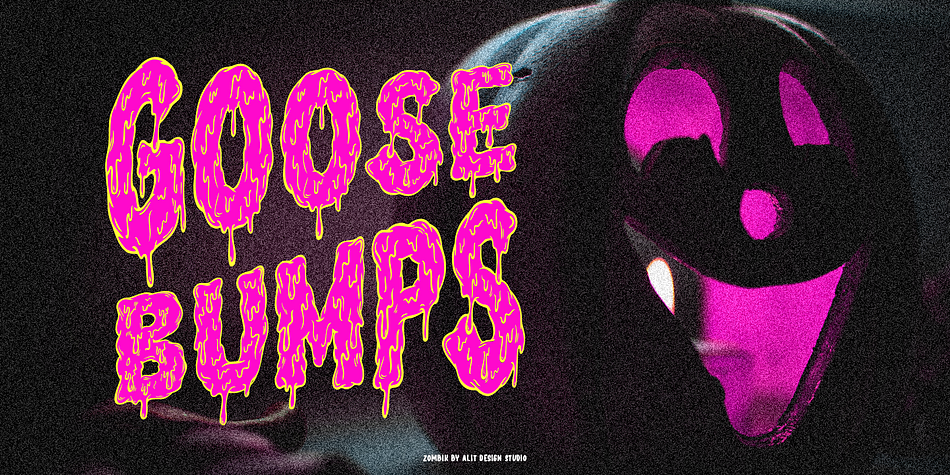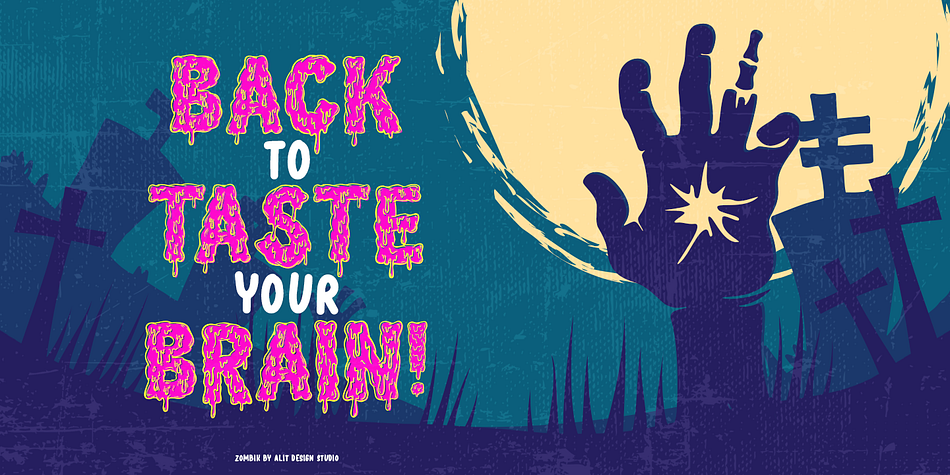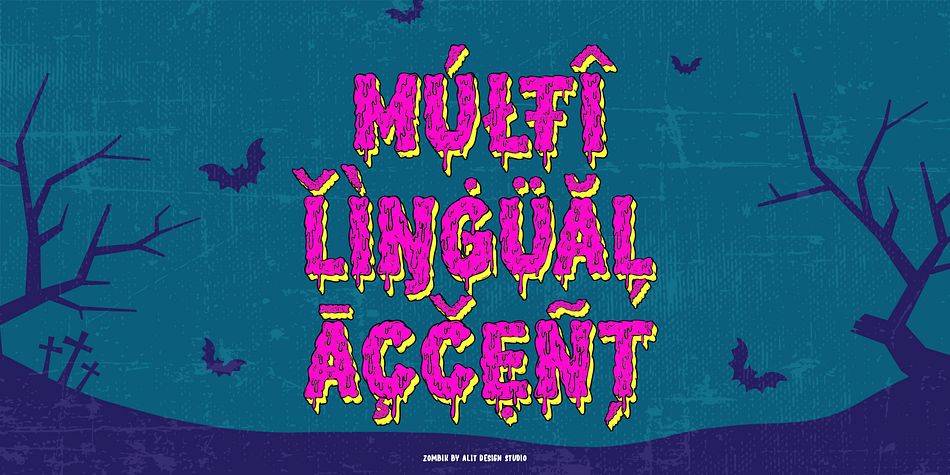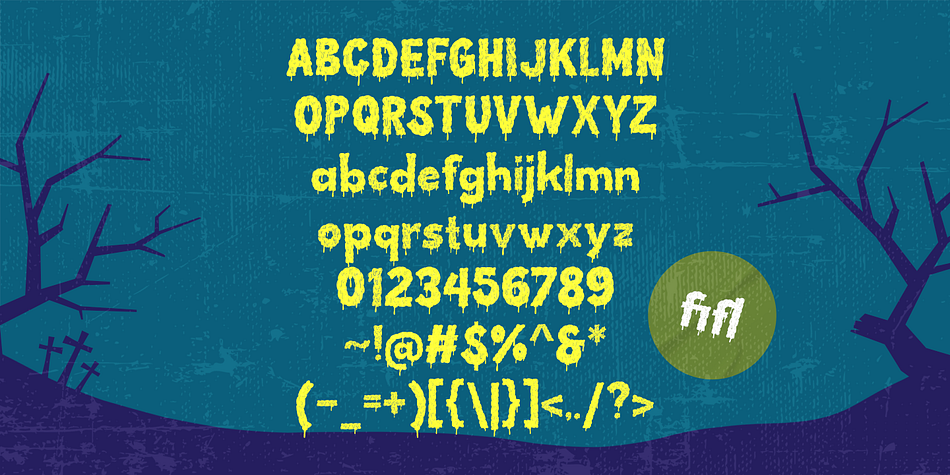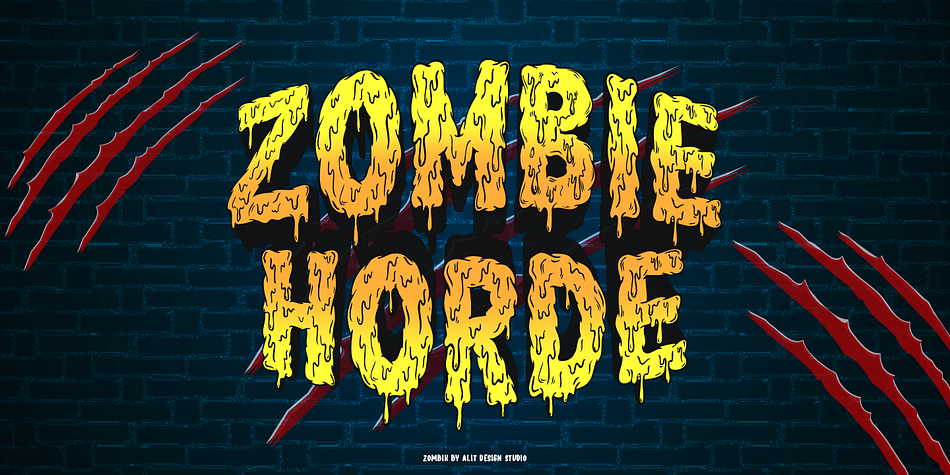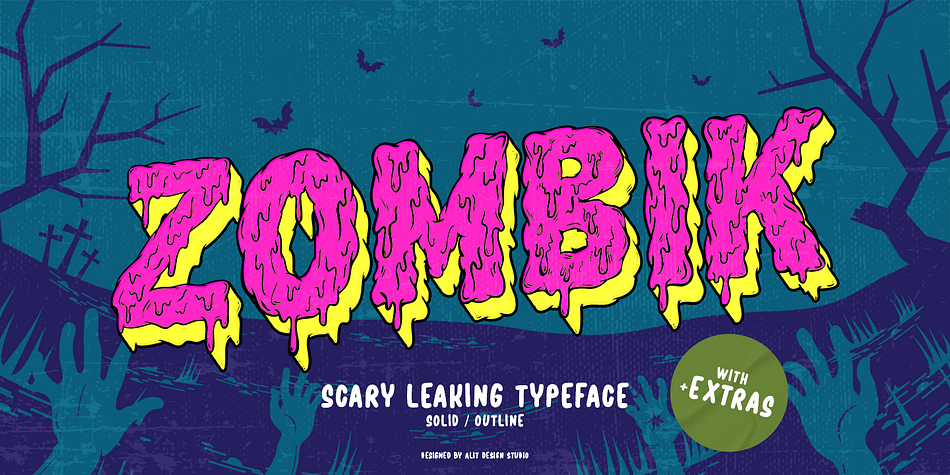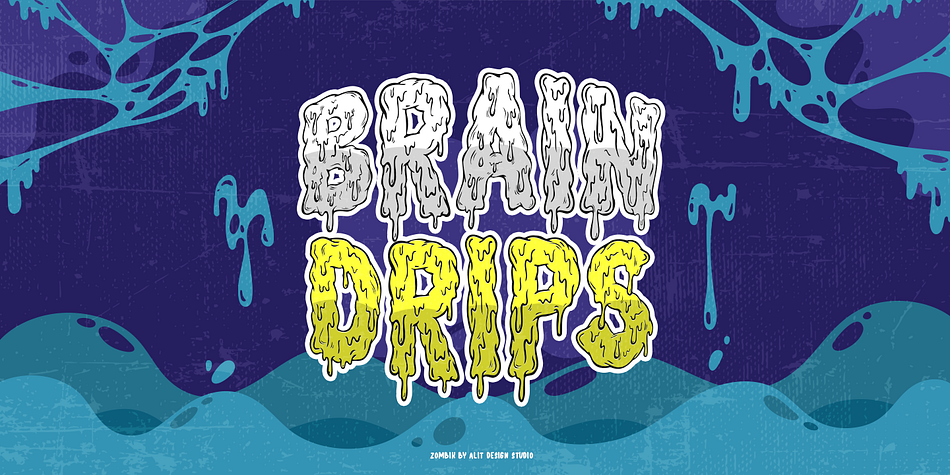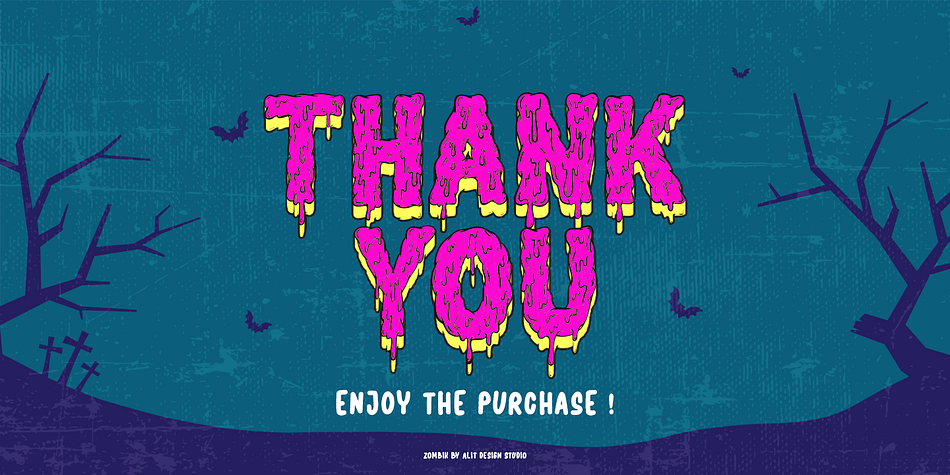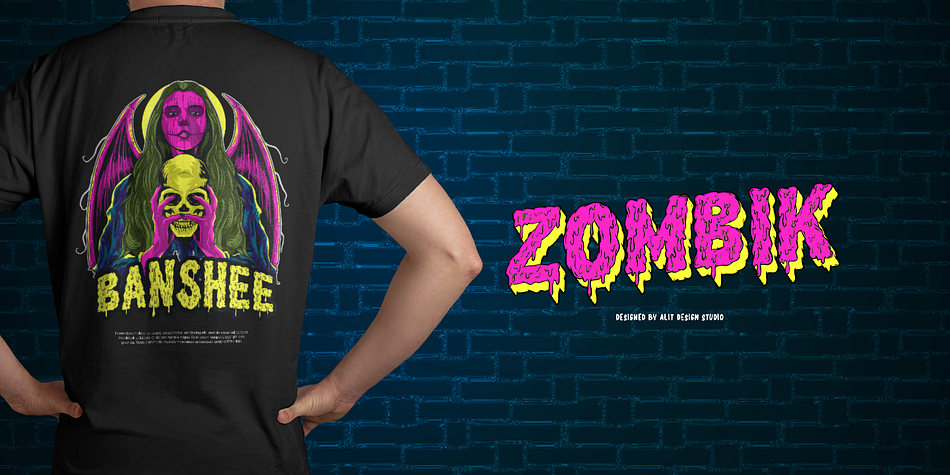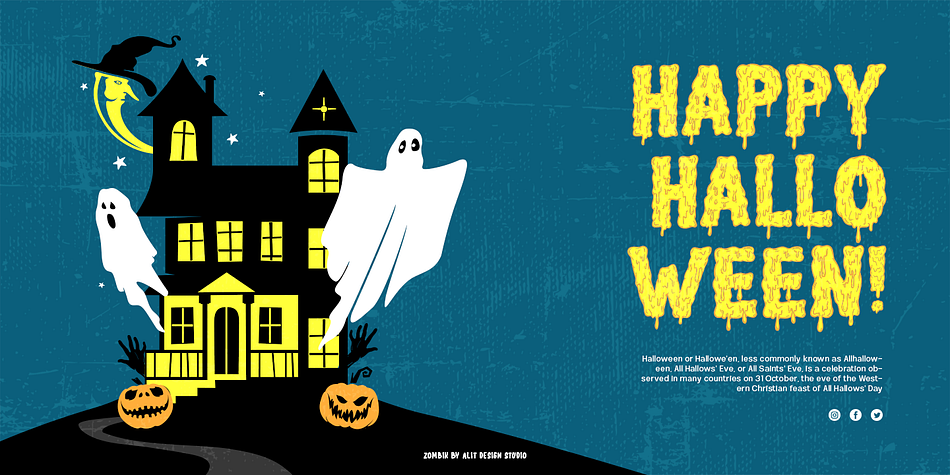
The Zombik
Designed by Alit Suarnegara, The Zombik is a display font family. This typeface has three styles and was published by Alit Design.
Presenting the ???? The Zombik Typeface ???? by alitdesign.
The Zombik typeface is designed for the needs of design concepts themed about Halloween and events in October and November. The Zombik font has a horror character with a character shaped like dripping blood, making the horo or Halloween themed design concept even better and unique.
The Zombik font also gets a bonus character of 150 Halloween-themed illustrations that make creating designs even easier. Simply by downloading The Zombik font, creating a Halloween themed design is very quick and easy.
The Zombik Typeface is perfect for magazine cover designs, brochures, flyers. Instagram ads, Canva Design and so on with halloween and dark concepts. besides that this font is very easy to use both in design and non-design programs because everything changes and glyphs are supported by Unicode (PUA).
The Zombik Typeface contains 473 + 150 bonus glyphs with many unique and interesting alternative options.
Language Support : Latin, Basic, Western European, Central European, South European,Vietnamese.